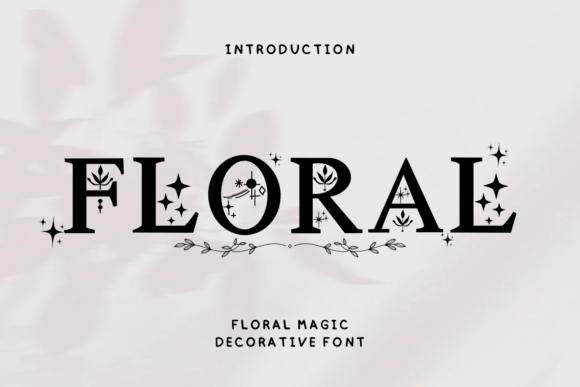
Unlock the Enchantment of Floral Magic Font: Elevate Your Designs with Whimsy and Artistry
In the realm of typography, few fonts manage to capture the essence of whimsy and artistic flair as effectively as Floral Magic. This stunning decorative font is specifically crafted to infuse your everyday jottings, notes, and designs with a touch of enchantment, making it an indispensable tool for creatives, designers, and anyone looking to add a dash of personality to their written expressions.
Discover the Unique Charm of Floral Magic
Floral Magic is more than just a font – it’s an experience. Its intricate design, reminiscent of delicate floral patterns, brings a level of sophistication and elegance to any project. Whether you’re flipping through the precious pages of your diary, crafting heartfelt messages on greeting cards, or designing captivating banners and social media posts, Floral Magic invites creativity and adds a touch of whimsy to every written word.
Endless Design Possibilities with Floral Magic
One of the standout features of Floral Magic is its versatility. This divergent font style is perfect for a variety of design explorations, making it an excellent choice for:
- Bedecking banners with an artistic flair
- Enhancing content and social media posts with a touch of elegance
- Transforming mundane items like mugs, cards, shirts, or stationery into pieces that express individuality and artistic innovation
With Floral Magic, you can step beyond conventional boundaries and breathe life into every written word. Its captivating allure can turn even the most ordinary projects into extraordinary ones, making it a must-have font for designers and non-designers alike.
Unleash Your Artistic Expression with Floral Magic
Floral Magic is not just a font – it’s a tool for self-expression. Its enchanting aesthetic appeal allows you to convey your personality, style, and artistic vision in a way that’s both unique and captivating. Whether you’re a:
- Designer looking to add a touch of whimsy to your projects
- Artist seeking to express yourself through typography
- Social media influencer aiming to elevate your content
Floral Magic provides the perfect platform to showcase your creativity and connect with your audience on a deeper level.
Immerse Yourself in the Magical Realm of Floral Magic
Floral Magic invites you to enter a world where lettering comes alive. Its magical realm of typography is filled with:
- Intricate patterns and designs that dance across the page
- A touch of whimsy and playfulness that’s sure to captivate
- A sense of elegance and sophistication that’s perfect for any project
By immersing yourself in the magical realm of Floral Magic, you’ll discover a world of creative possibilities that will inspire and delight you.
Practical Applications of Floral Magic
Floral Magic is not just a font – it’s a versatile tool with a wide range of practical applications. Here are some ideas to get you started:
- Wedding invitations and stationery
- Greeting cards and gift tags
- Social media graphics and posts
- Branding and packaging design
- Artistic projects and collages
Whether you’re working on a personal project or a professional one, Floral Magic is the perfect choice for adding a touch of elegance and whimsy.
Tips and Tricks for Getting the Most Out of Floral Magic
To get the most out of Floral Magic, here are some tips and tricks to keep in mind:
- Experiment with different colors and textures to add depth and interest
- Mix and match Floral Magic with other fonts to create a unique look
- Use Floral Magic to add a touch of personality to your social media posts
- Don’t be afraid to get creative and try new things!
By following these tips and tricks, you’ll be able to unlock the full potential of Floral Magic and take your designs to the next level.
In conclusion, Floral Magic is a stunning decorative font that offers a world of creative possibilities. Its enchanting aesthetic appeal, versatility, and captivating allure make it the perfect choice for anyone looking to add a touch of whimsy and artistic flair to their designs. Whether you’re a designer, artist, or simply someone looking to elevate your written expressions, Floral Magic is the perfect tool for unlocking your creative potential.